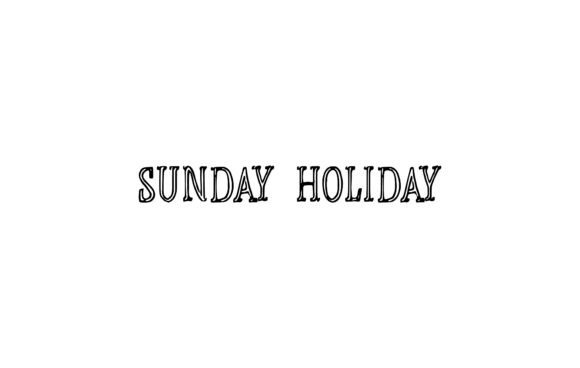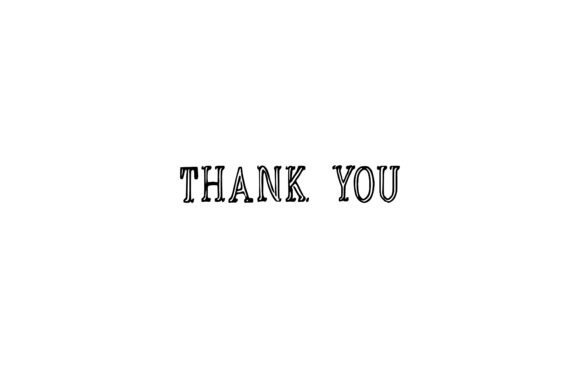
Craftella Font: Elevate Your Designs with a Touch of Romance
In the world of typography, a well-crafted font can make all the difference in bringing your creative ideas to life. If you’re a designer, crafter, or DIY enthusiast looking for a unique and authentic handwritten font with a romantic touch, look no further than Craftella. This beautifully designed font is sure to capture your heart and take your projects to new heights.
The Charm of Craftella Font
Craftella font is an authentic handwritten font that exudes a sense of romance and elegance. Its expertly designed curves and lines make it a true favorite among designers and crafters alike. With its legible and versatile nature, Craftella font is perfect for a wide range of applications, from magazine headlines and social media graphics to branding, wedding invitations, and greeting cards.
Key Features of Craftella Font
- Authentic Handwritten Style: Craftella font boasts a genuine handwritten look that adds a personal touch to any design.
- Romantic Touch: The font’s elegant curves and lines evoke a sense of romance, making it perfect for wedding-related designs, Valentine’s Day cards, and other special occasions.
- Legibility: Craftella font is designed to be easy to read, making it suitable for both title and body text.
- Versatility: Use Craftella font for a variety of design projects, including magazine headlines, social media graphics, branding, wedding invitations, cards, and more.
Why Choose Craftella Font?
With so many fonts available, why choose Craftella? Here are just a few reasons why this font stands out:
- Unique and Exclusive: Craftella font is a one-of-a-kind design that will set your projects apart from the rest.
- High-Quality Design: Craftella font is meticulously crafted to ensure a high level of quality and attention to detail.
Inspiration for Craftella Font
Whether you’re a seasoned designer or a crafty DIY enthusiast, Craftella font is sure to inspire your next project. Here are a few ideas to get you started:
- Wedding Invitations: Use Craftella font to create beautiful, custom wedding invitations that set the tone for a romantic and memorable day.
- Social Media Graphics: Add a touch of elegance to your social media graphics with Craftella font, perfect for quotes, promotions, or special announcements.
- Branding: Establish your brand’s identity with Craftella font, ideal for logos, business cards, and marketing materials.
- Magazine Headlines: Use Craftella font to create eye-catching headlines and titles for your magazine or blog.
In conclusion, Craftella font is a versatile and beautiful handwritten font that is sure to elevate your designs and bring a touch of romance to your projects. With its unique and exclusive design, ease of use, and high-quality craftsmanship, Craftella font is a must-have for designers, crafters, and DIY enthusiasts alike. So why wait? Download Craftella font today and take your creative ideas to new heights!